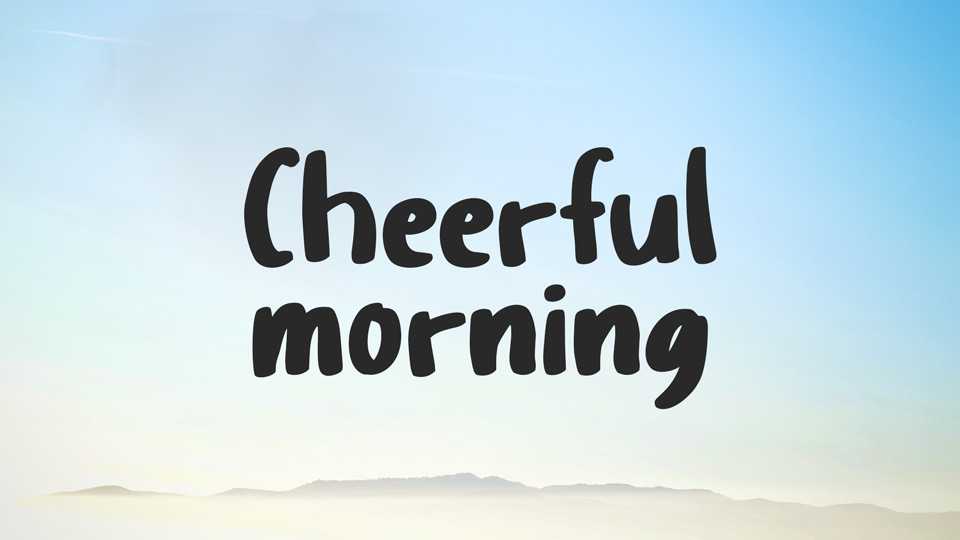
Download Cheerful Morning font, a sweet and simple handwritten typeface with an organic look. Cheerful Morning font is great for posters, quotes, food menus, crafts, kids books.